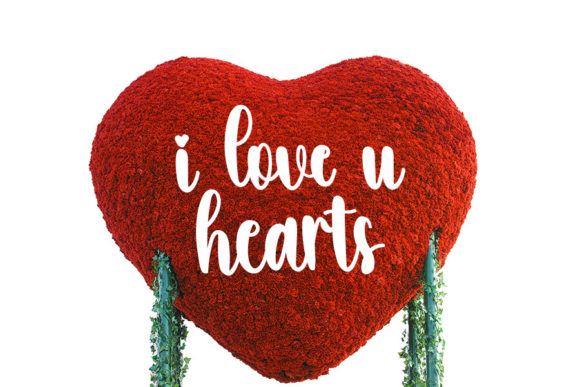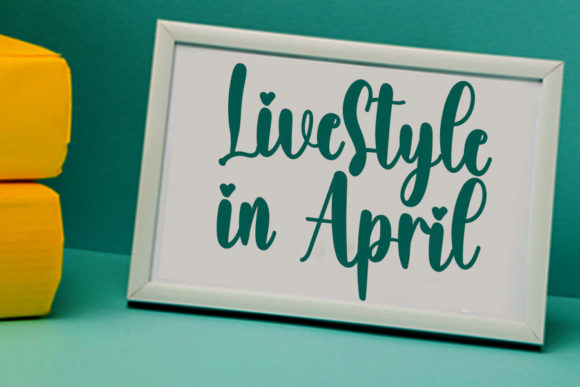
Hearts Font
db-ku.com - Script & Handwritten -- Hearts is a stylish handwritten font with a contemporary atmosphere and impeccable form, inspired by a timeless classic calligraphy. Balanced and varied, this font was designed to enhance the beauty of your projects.